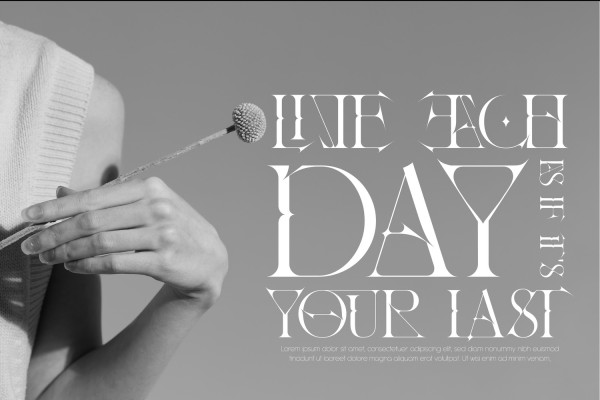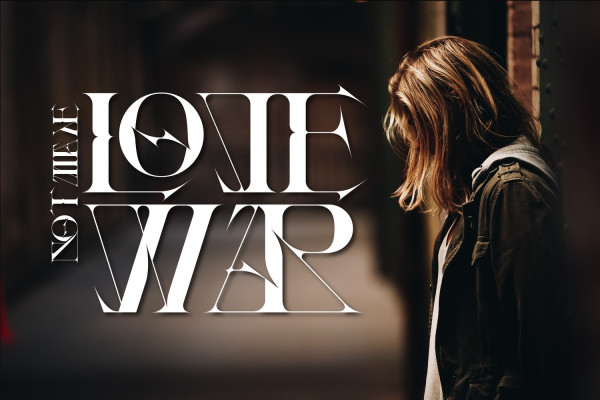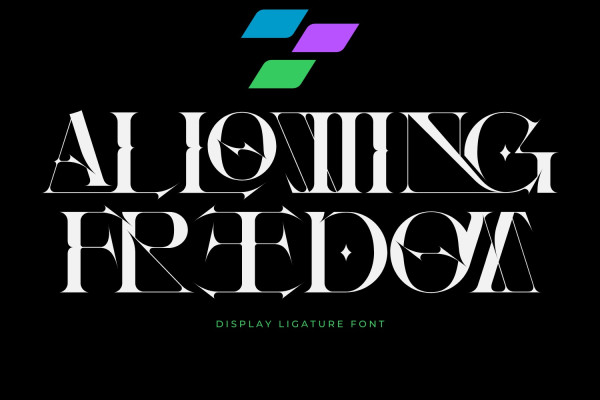
Allowing Freedom Font
Allowing Freedom Font is a modern & unique serif font. It’s a stylish and elegant serif typeface. With fluid, graceful strokes, it captivates with its contemporary charm and timeless sophistication. Let the cascading aqua serifs dance across your designs, creating a harmonious symphony of visual delight.
Allowing Freedom was built with OpenType features and includes 100 ligatures, alternate, numbers, punctuation, and it also supports other languages.
AC AD AL AN AR AS AT AU AV BE CA CE CH CO CT DE DI EA EC ED EE EL EM EN EP ER ES ET FE FO FR GE HA HE HI HO IE IC IL IN IO IR IS IT JU KE LA LE LI LL LO LY MA ME MI NC ND NE NG NO NT NS OC OF OM ON OO OP OR OT OU OW PA PR RA RD RE RI RO RS RT SE SH SI SO SS ST TA TE TH TI TO TR TT UM UN UR VE WI WO